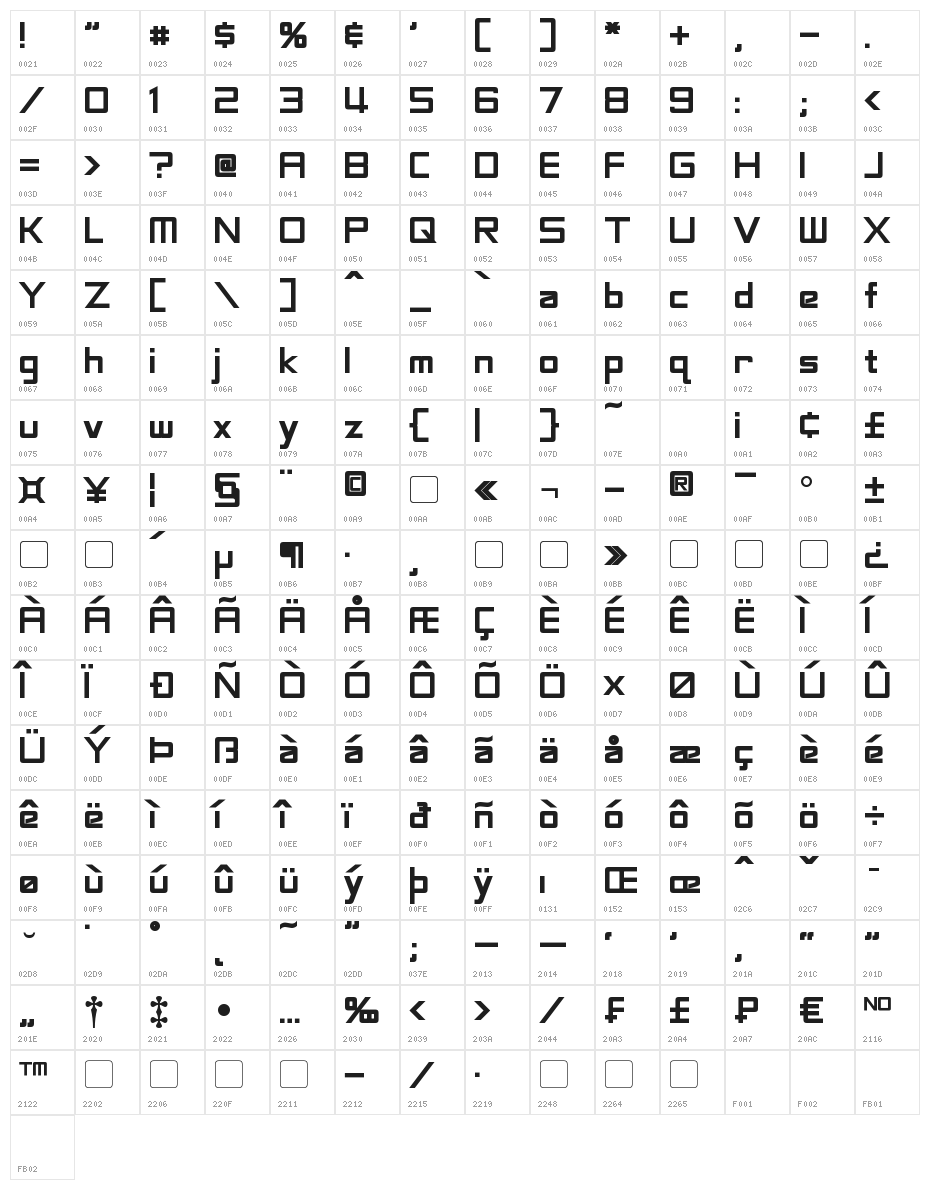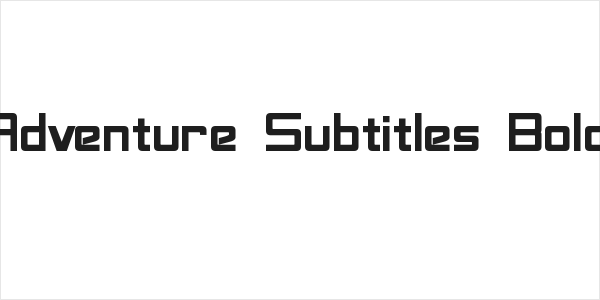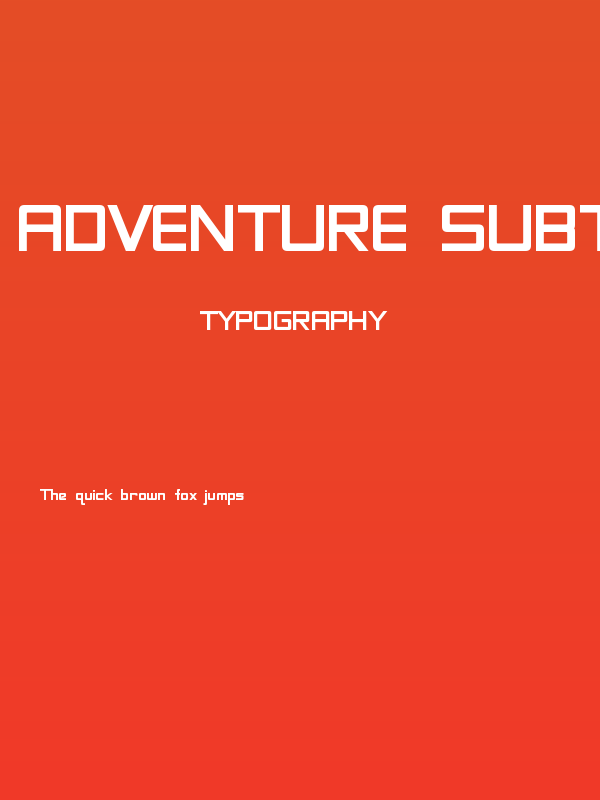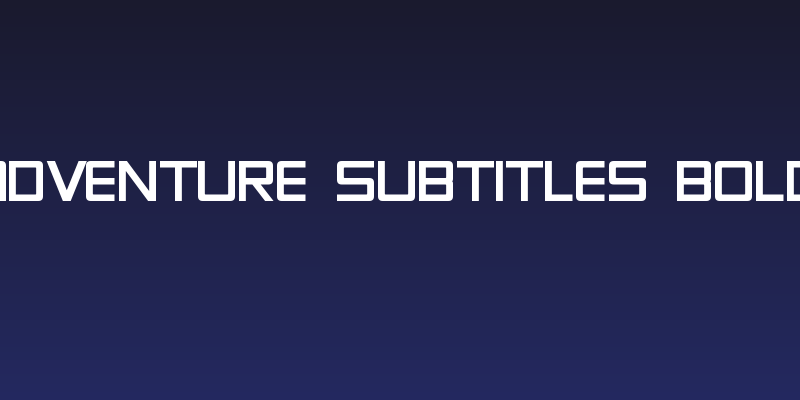
Adventure Subtitles Bold Font
Adventure Subtitles Bold Description
This font features a bold and modern design with a geometric structure. The uppercase letters are uniform in height, with a square-like appearance that gives a sense of stability and strength. The lowercase letters maintain the geometric theme, with rounded edges that soften the overall look. Numbers are consistent with the letterforms, providing a cohesive appearance across all characters. The special characters are distinct and easily recognizable, fitting seamlessly with the rest of the font. This font's boldness and clarity make it suitable for impactful designs.
| Proposed Projects | Ideal for use in video game titles, movie posters, and branding materials that require a strong and modern aesthetic. |